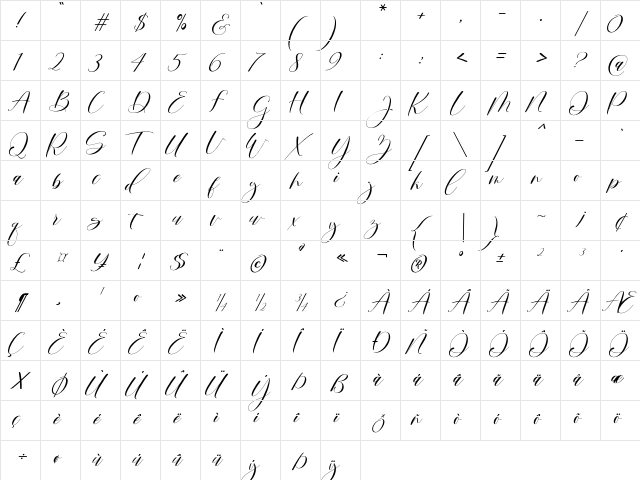
Mortyni Regular
| Foundry | Aqeela Studio |
| Designer | Aqeela Studio |
Design Context for Mortyni Typeface
Mortyni is a composed and adaptable typeface that performs quietly and consistently across a wide range of design contexts.